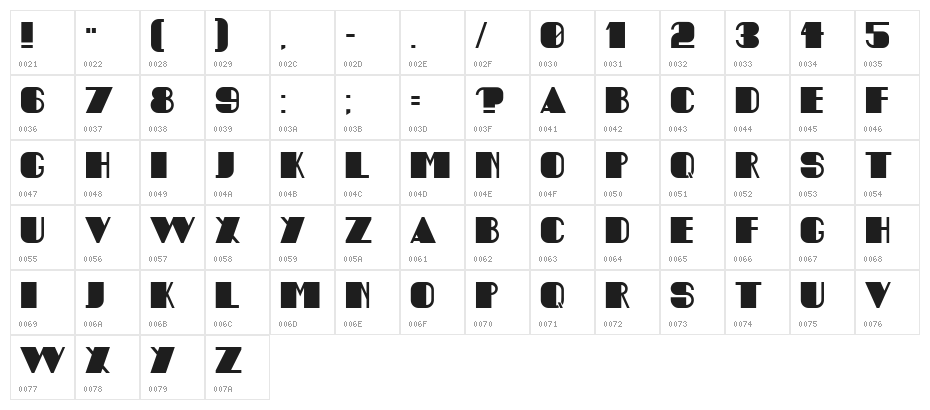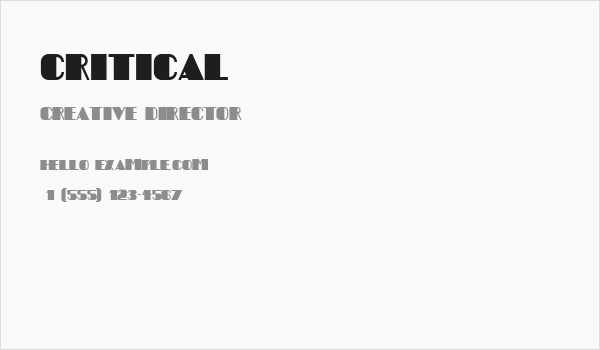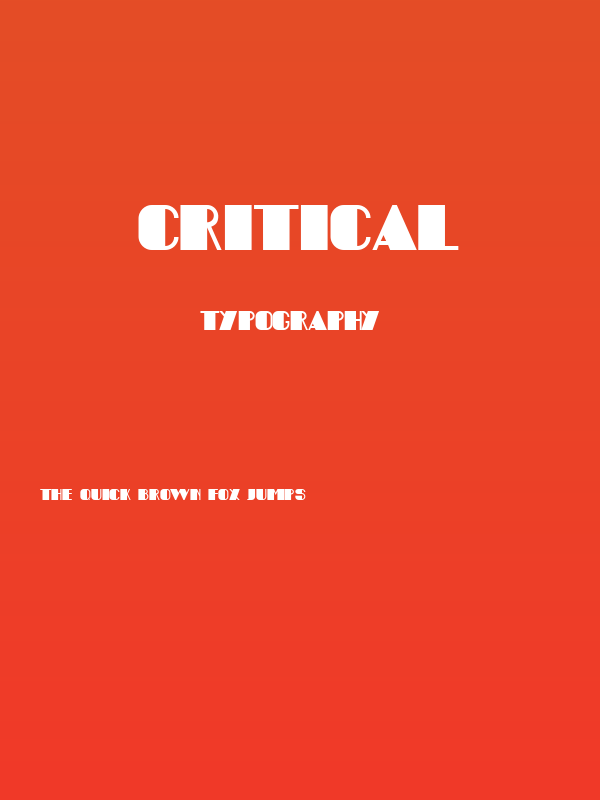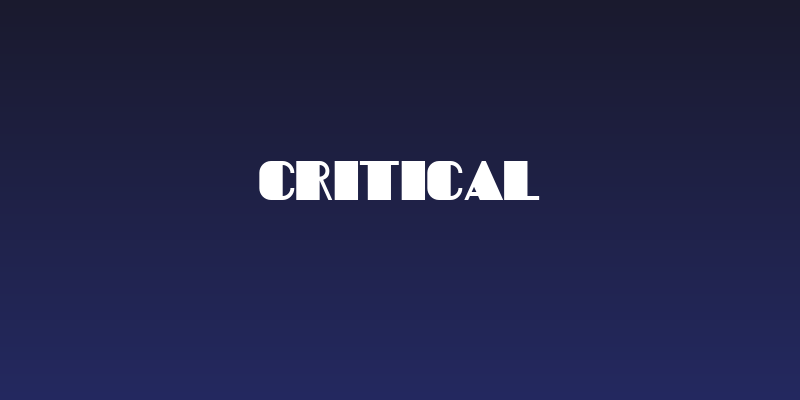
Critical Font
Critical Description
This font features a bold and striking design with a geometric and blocky appearance. The characters are constructed with sharp angles and straight lines, giving it a modern and industrial feel. The uppercase letters are particularly prominent, with a uniform height and width that create a strong visual impact. The numbers and special characters maintain the same boldness, ensuring consistency across all elements. The font's design is highly stylized, making it suitable for attention-grabbing headlines and titles. Its unique style is characterized by a combination of solid fills and occasional cut-out sections, adding a dynamic and edgy touch.
Proposed ProjectsIdeal for branding, posters, and signage where a strong visual impact is desired.